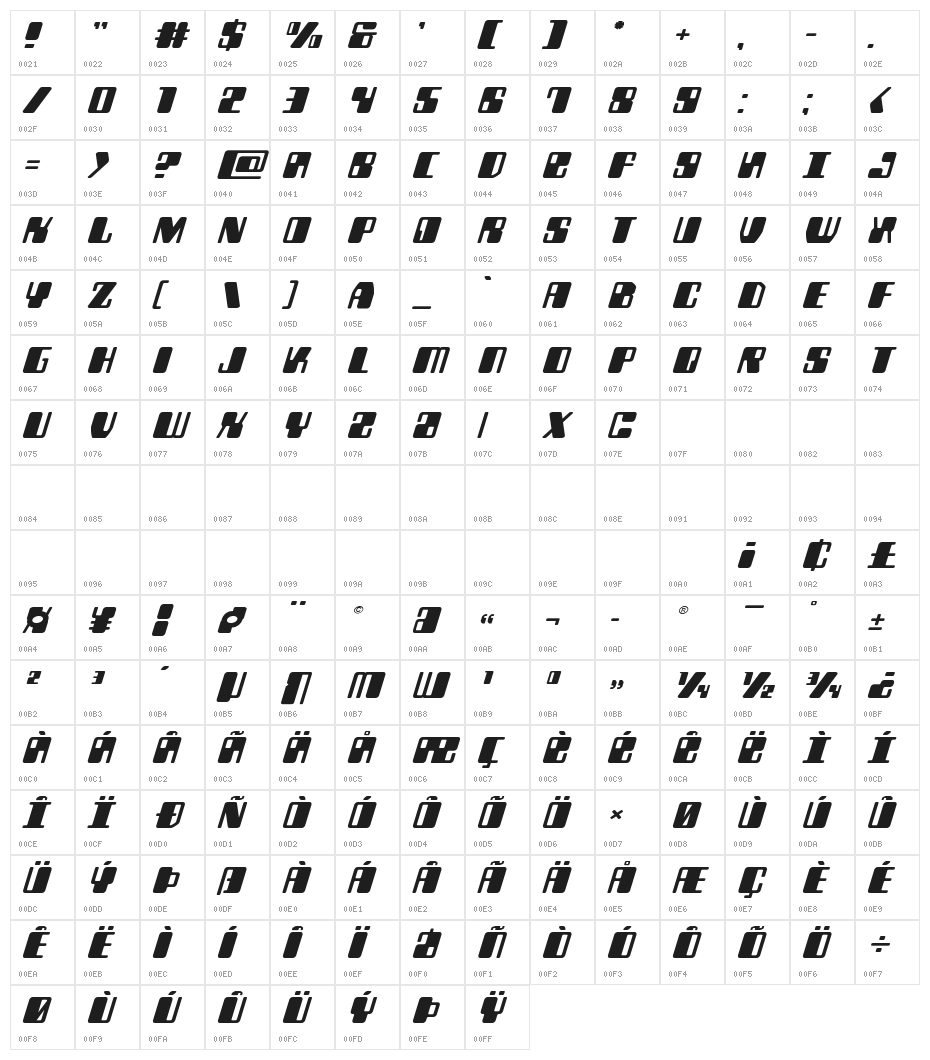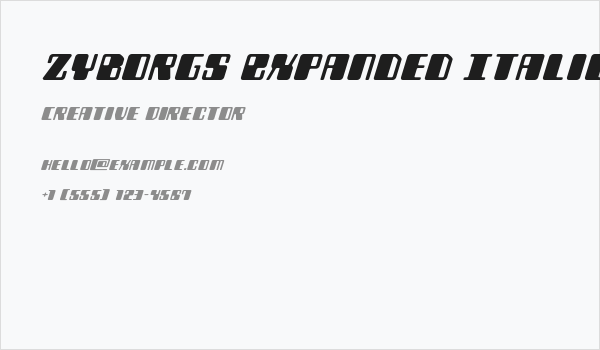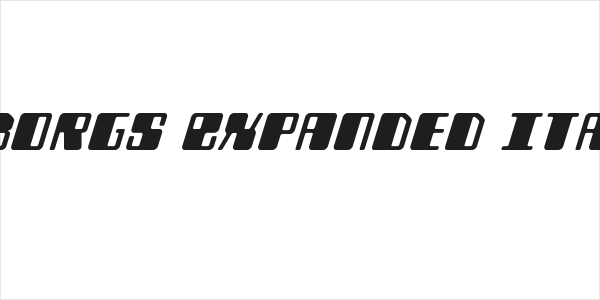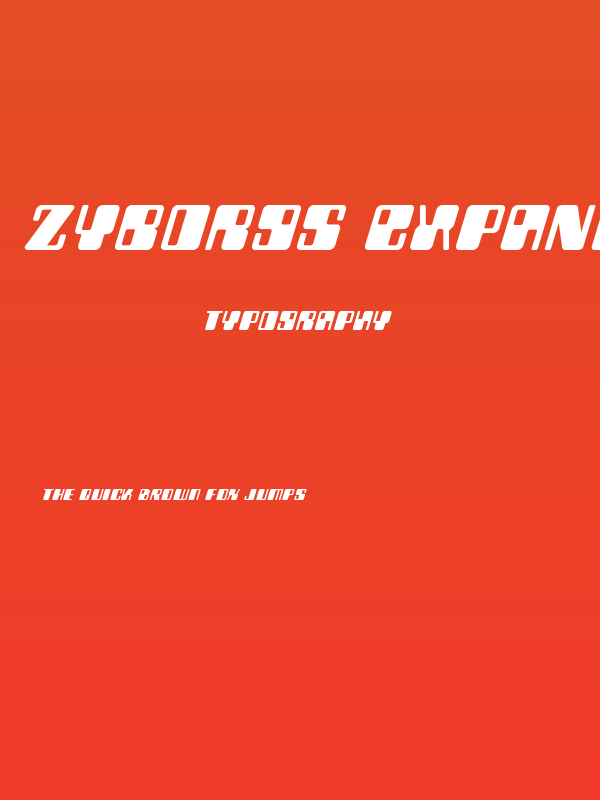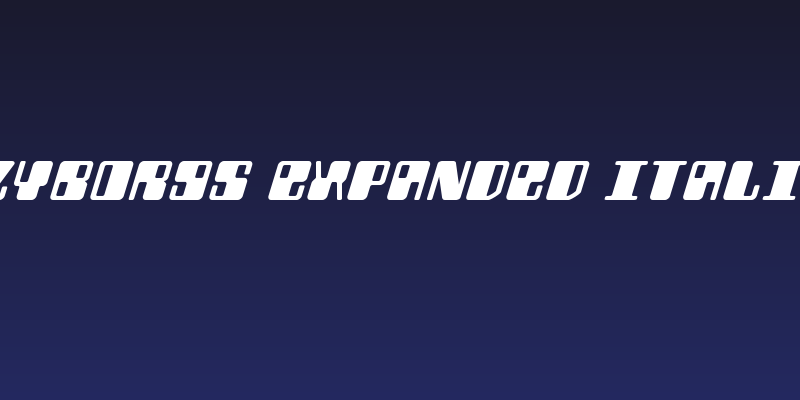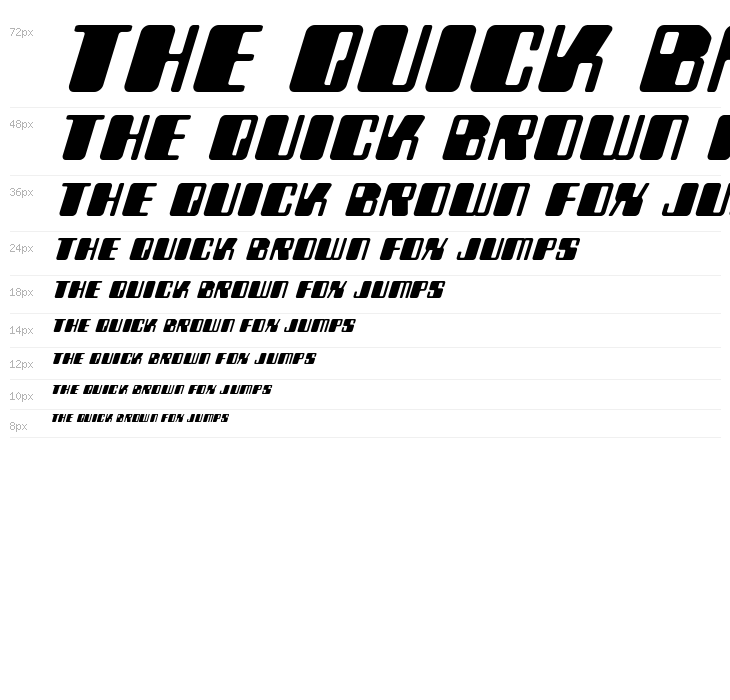
Zyborgs Expanded Italic Font
Zyborgs Expanded Italic Description
This font features a bold and dynamic design with an expanded and italicized style. The characters are wide and have a futuristic, tech-inspired appearance, making them stand out with their unique geometric forms. The strokes are consistent in weight, providing a uniform look across all characters. The italic slant adds a sense of motion and speed, enhancing its modern aesthetic. The font is highly legible, even at smaller sizes, due to its clear and distinct letterforms. It includes a full set of uppercase and lowercase letters, numbers, and a variety of special characters, making it versatile for different design needs.